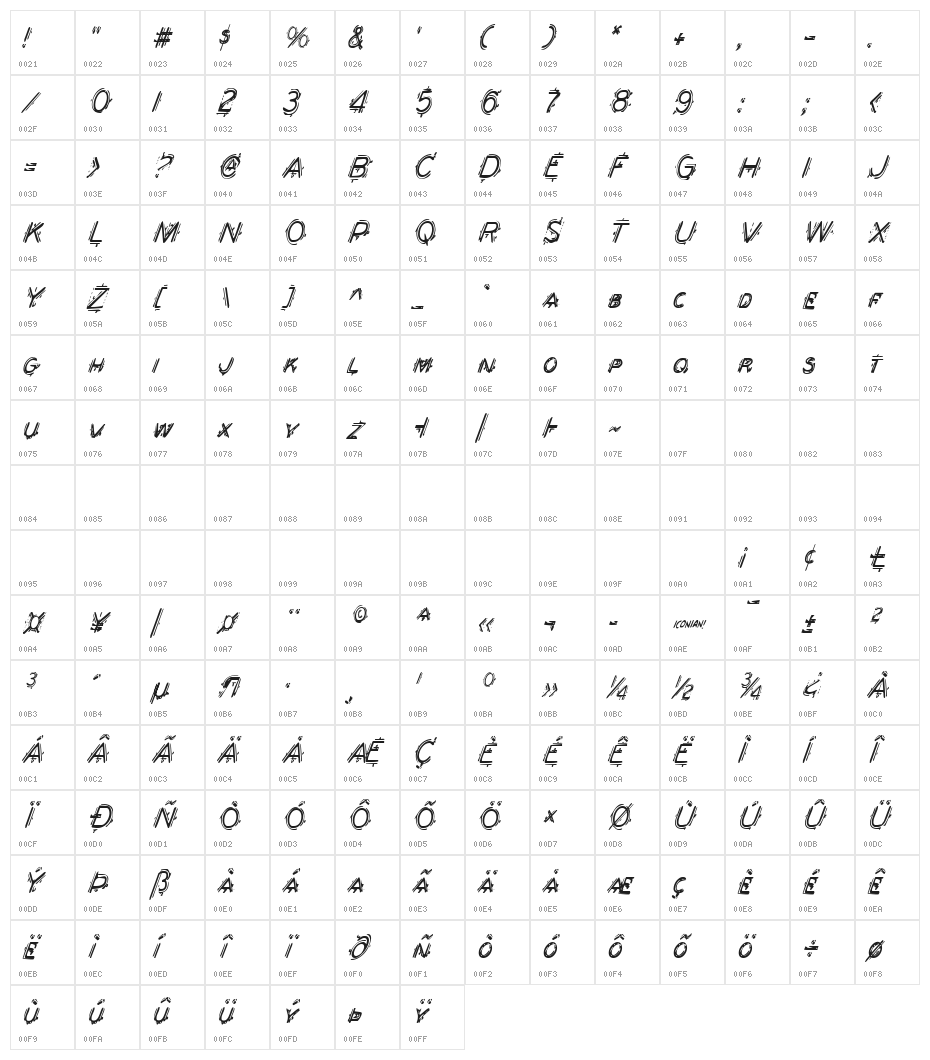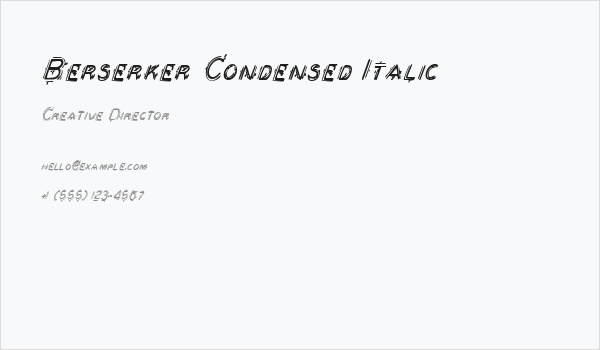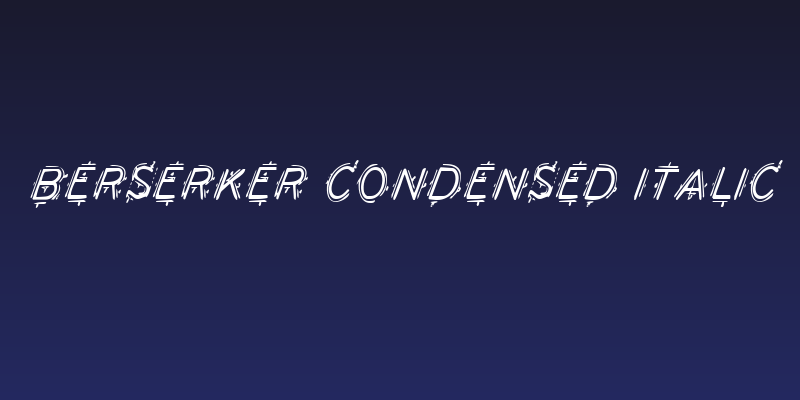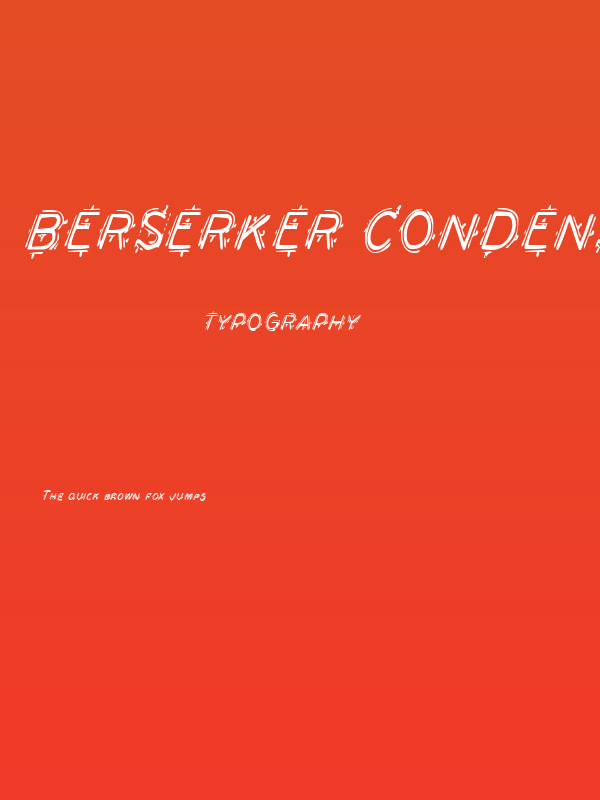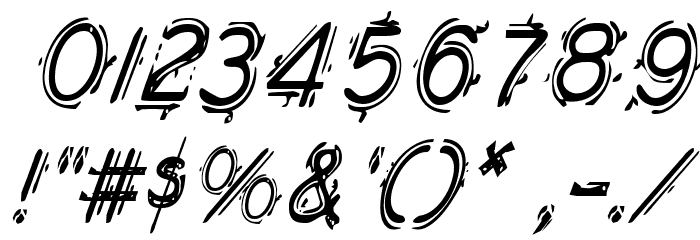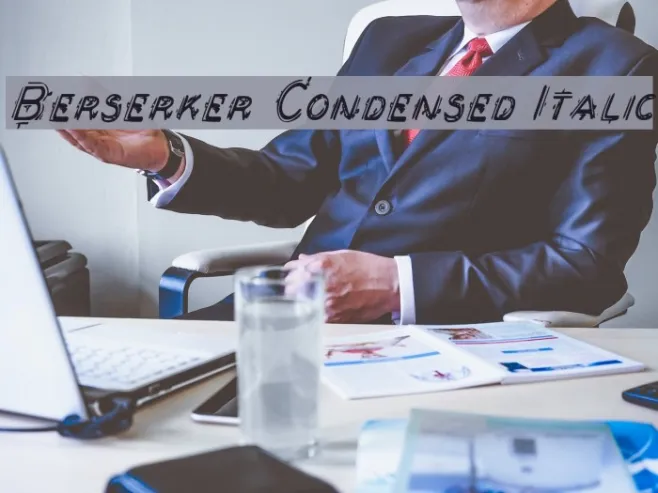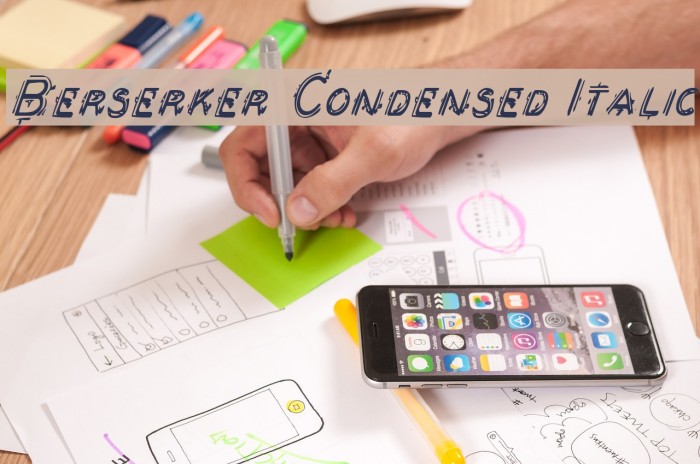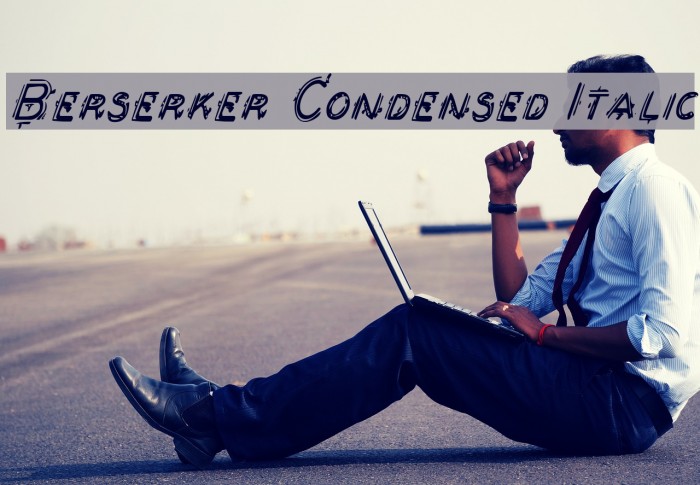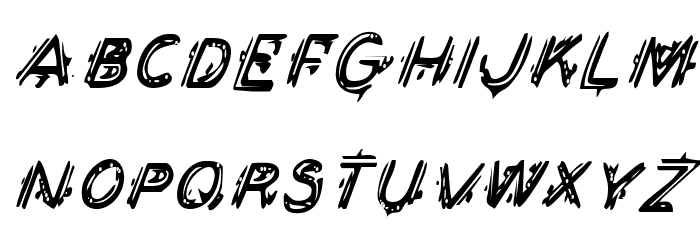
Berserker Condensed Italic Font
✎ Distorted Eroded
Berserker Condensed Italic Description
This font presents a dynamic and aggressive style, characterized by sharp edges and a distressed, grunge appearance. The letters are italicized, giving a sense of motion and urgency. Each character is uniquely designed with irregular cuts and slashes, creating a chaotic yet artistic look. The condensed nature of the font allows for tight spacing, making it suitable for impactful headlines or titles. The uppercase and lowercase letters maintain a consistent style, while the numbers and special characters follow the same edgy design. This font is ideal for projects that require a bold and unconventional aesthetic.
| Overall Style | Modern, Grunge |
| Proposed Projects | Ideal for music album covers, posters, video game titles, or any project needing a bold, edgy look. |